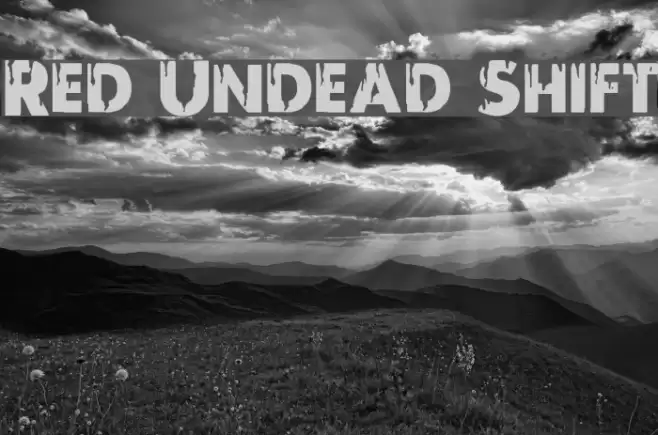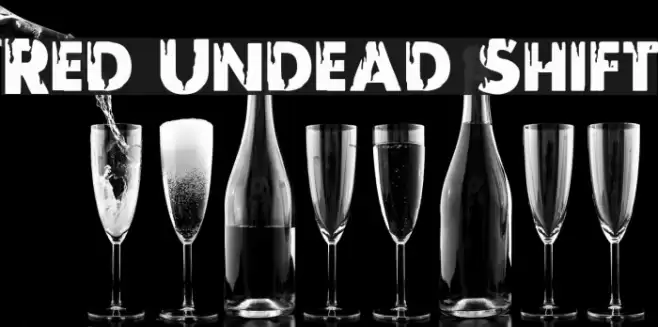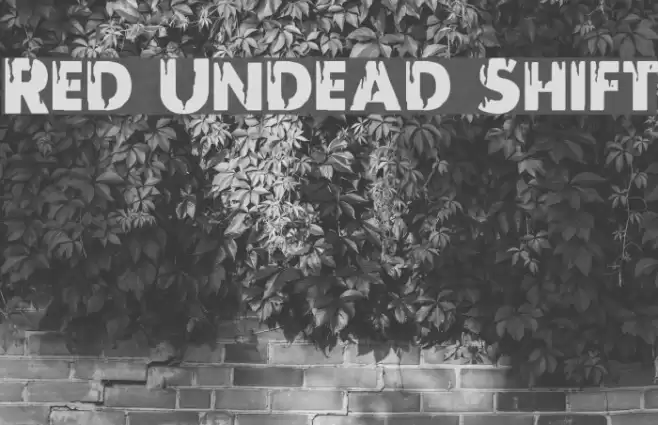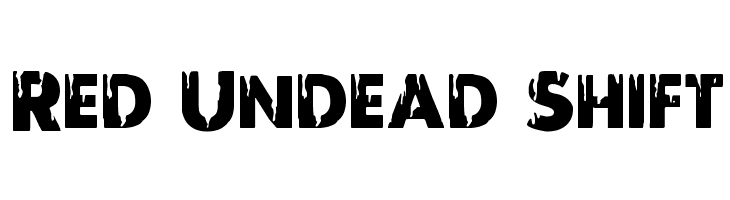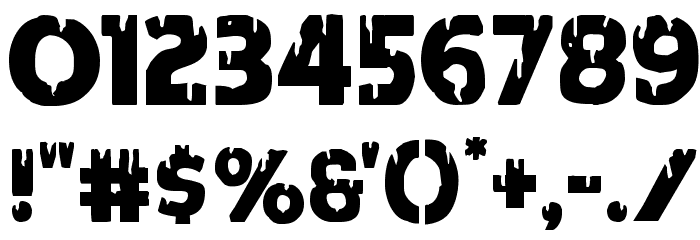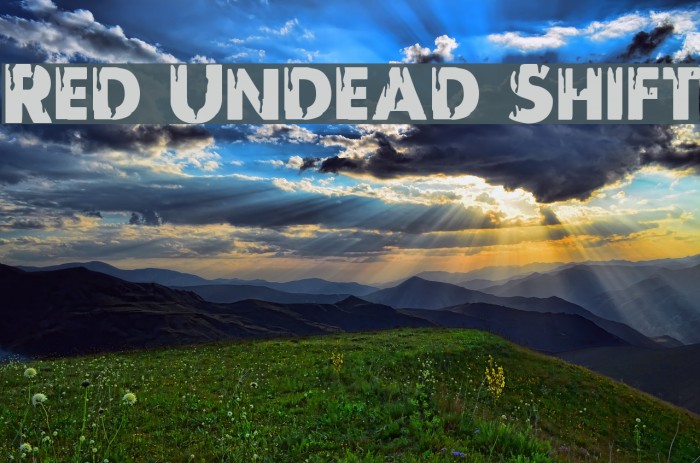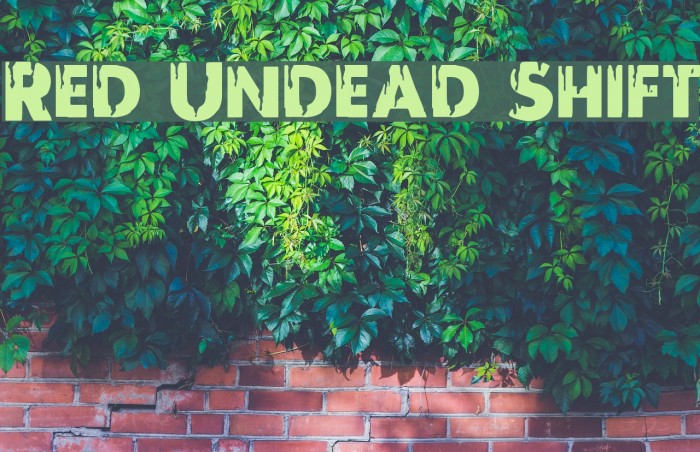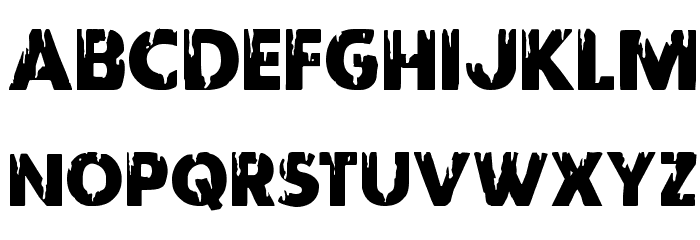
Red Undead Shift Font
Red Undead Shift Description
This font features a bold, distressed style with a rugged, worn appearance. The characters are heavily textured, giving them a grunge-like effect that suggests decay or erosion. Each letter and number is distinctively carved with irregular edges, creating a dynamic and edgy look. The font's boldness ensures high visibility, while the unique texture adds a layer of visual interest. The overall design is reminiscent of horror or post-apocalyptic themes, making it ideal for projects that require a dramatic and impactful typeface.
A bold, distressed font with a rugged, grunge-like appearance from Horror fonts.
- Proposed Projects: Ideal for horror-themed posters, video game titles, Halloween event flyers, and any design needing a dramatic, edgy typeface.